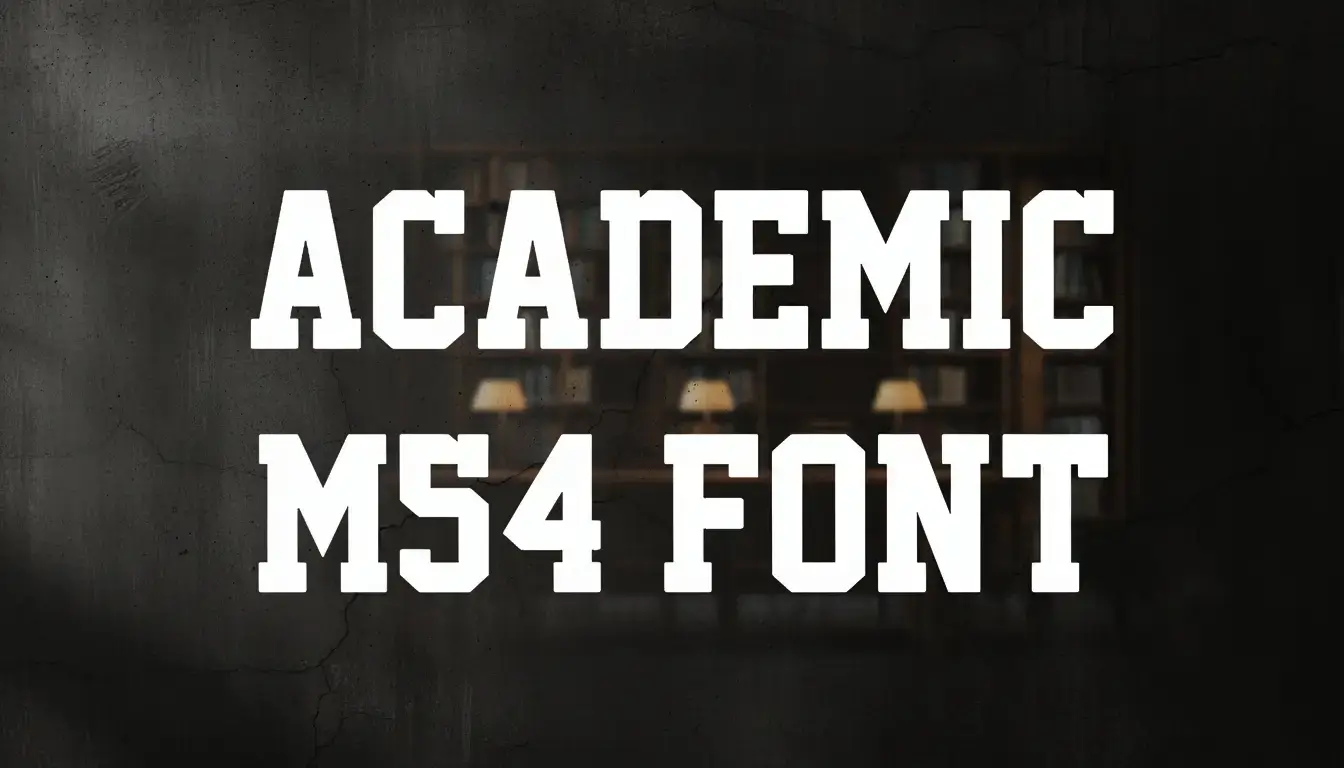
Academic M54 Font
Academic M54 Font Preview
Academic M54
Academic M54 is a fancy font designed by Mohammed Rahman and published by M54 (justme54s). Bold and full of character, it's built to stand out rather than blend in. You can download it for free and test it with your own words in the preview above.
What You Can Type With Academic M54
Academic M54 covers the full alphabet in upper and lowercase, plus all ten numbers, so you can set names, dates and prices without switching fonts. Common punctuation such as &, !, ? and @ is included as well. It doesn't include accented letters such as é or ñ, which makes it an English-only font.
Where Academic M54 Works Best
Academic M54 is a natural fit for posters, logos and eye-catching headlines. Use it for one standout word or headline and let simpler fonts handle the rest.